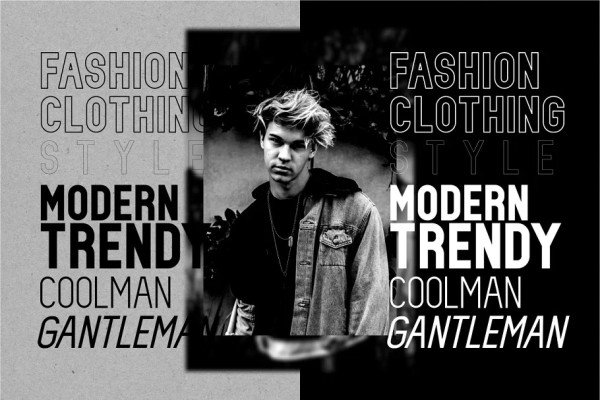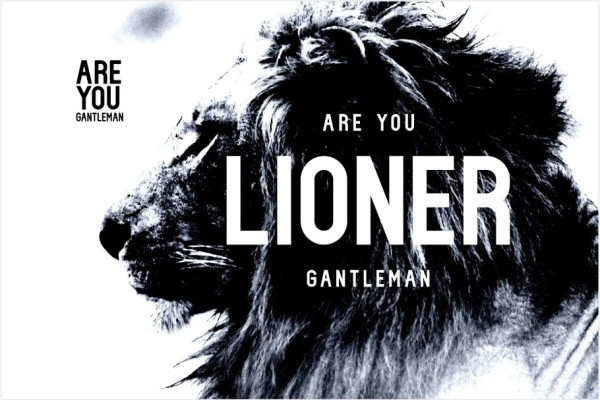
Harthen Font
Harthen Font is a modern sans serif font anytime and very well, comes with a modern style hoping to become a favorite by the market. We keep this font looking elegant, classy, ​​modern, stylish, contemporary, and easy to use. HarthenFont is the right choice for fashion, banners, logos, food menus, brand names, branding, brands, quotes, album covers, and other projects. TheHarthen font is here to take your designs to the next level.
Font Features: • All caps • 8 kinds of family letters • Italic font version available • Multilingual support • Numerical and punctuation